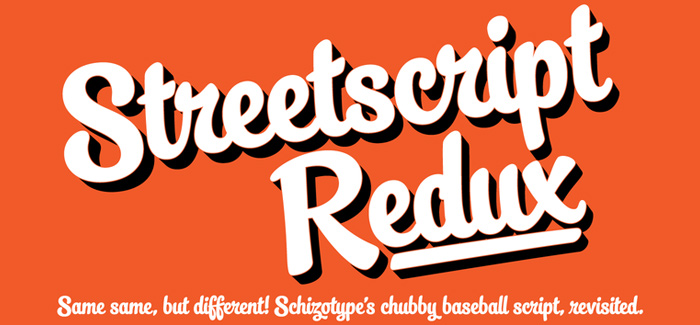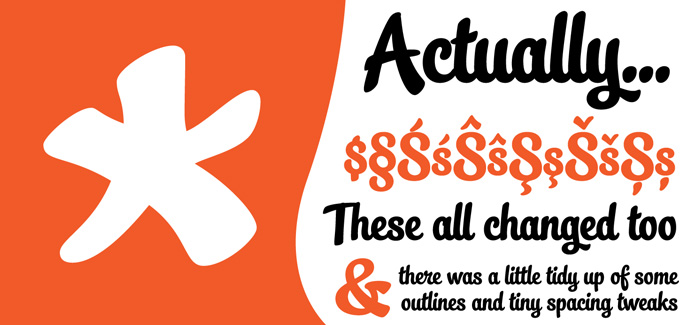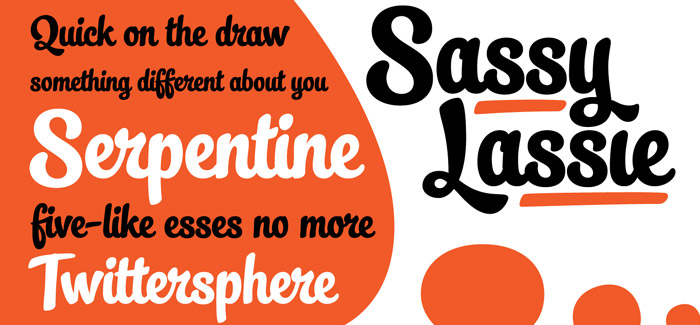
Streetscript Redux font
Streetscript Redux font by Dave Rowland (Schizotype foundry, check also his Urge Text font, Gelato Script font, Ollie font, etc.) is a remastering of the 2012 MyFonts’ Rising Star typeface called Streetscript). The original Streetscript font – a chubby, uprightish baseball script experienced a long and happy life, full of interesting type design applications, far beyond the range of anticipated uses. But there was a little black spot on the sun – the letter ‘s’. It seemed that a lot of users didn’t like the s’s in the font, and after seeing some of the users’ variations of the theme, the font designer decided to regain the initiative.
The Streetscript Redux font’s ‘s’ is completely redesigned, it’s no longer so peculiar, ambivalent, and ‘five-like’ as the original. All other features of the original Streetscript font are intact (barring a couple of s-ligatures no longer necessary). There’s been a little tweaking of some outlines, and slight changes with spacing, too.